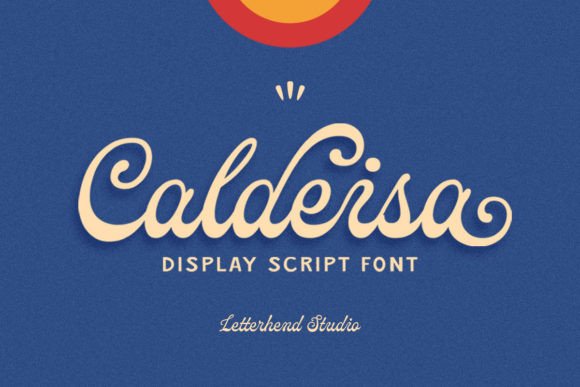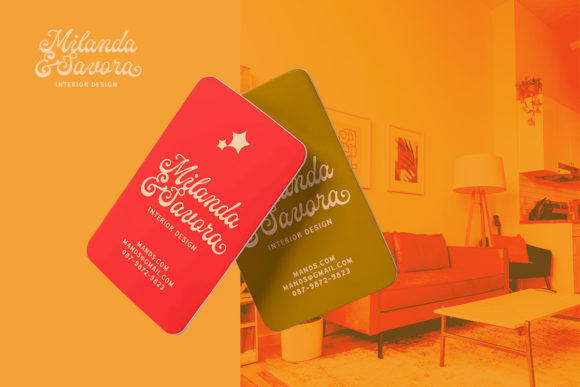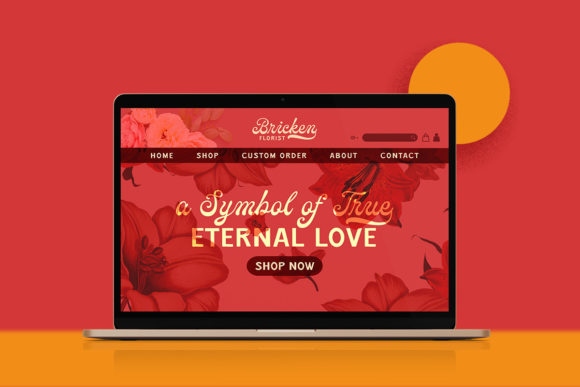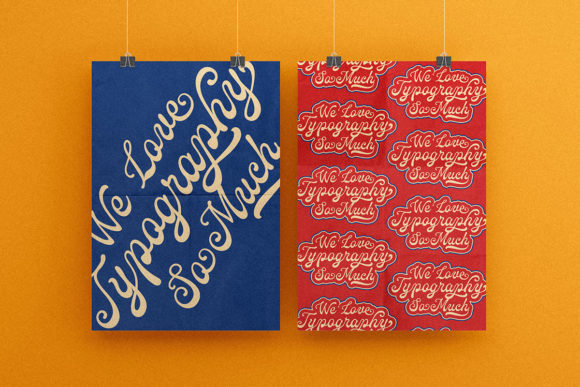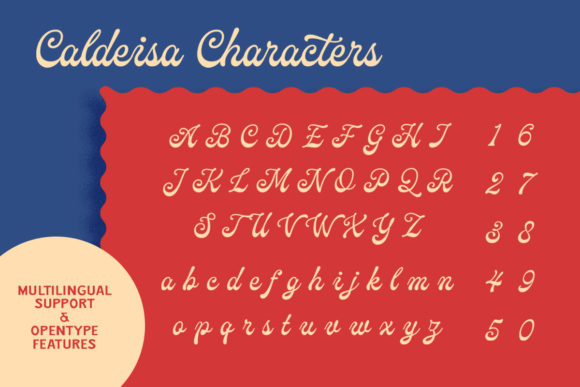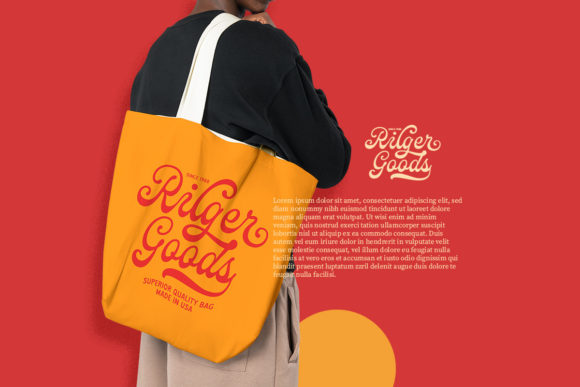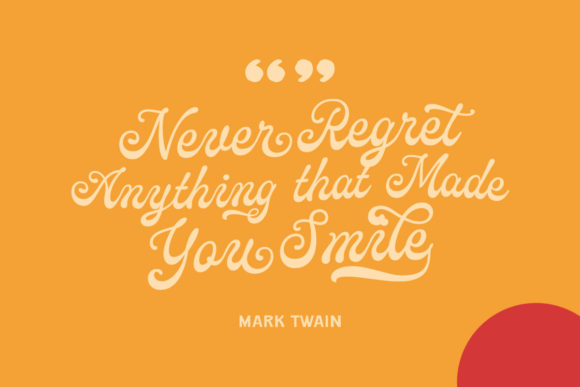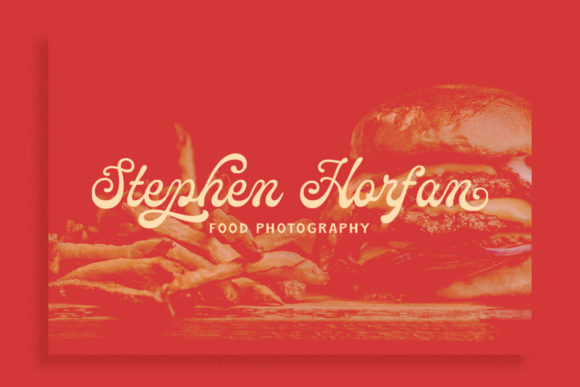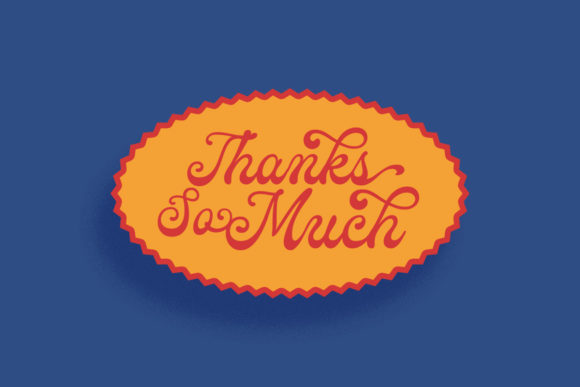
Calderisa Font
“Calderisa” is a display script font that exudes a sense of uniqueness and class. This font type is tailor-made to excel in applications such as logos, headlines, signage, and other formal contexts like invitations, labels, magazines, books, greeting and wedding cards, packaging, fashion, makeup, stationery, novels, and various advertising materials.
The font’s distinct appeal lies in its ability to convey an elegant and sophisticated vibe, making it a perfect choice for projects that require a touch of refinement. Its carefully crafted characters contribute to a visual aesthetic that is both eye-catching and upscale.
“Calderisa” is especially well-suited for elevating your brand identity, whether it’s through logos or signage. It also adds a stylish touch to various types of publications, from magazines to novels. The font’s versatility ensures that it adapts seamlessly to a wide range of design scenarios.
A notable feature of this font is its PUA encoding, which provides effortless access to its incredible range of glyphs and ligatures. This encoding empowers designers to explore and utilize a variety of design variations, enhancing the font’s creative potential.
To sum up, “Calderisa” is a display script font that marries uniqueness with sophistication. Its adaptability across diverse applications, combined with the convenience of PUA encoding, makes it a powerful tool for designers aiming to create visually stunning and refined works across various mediums.